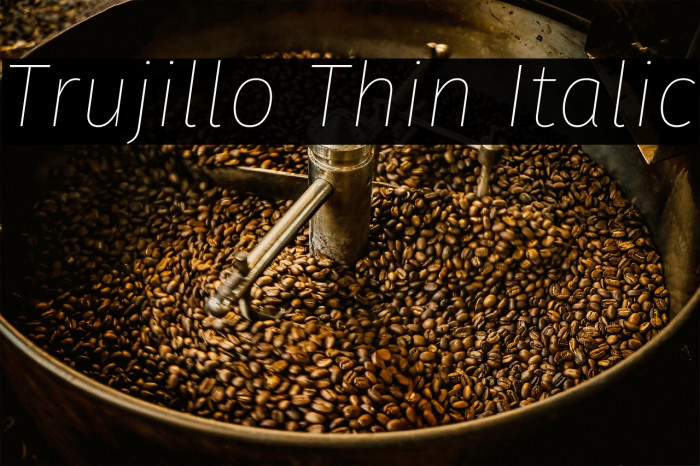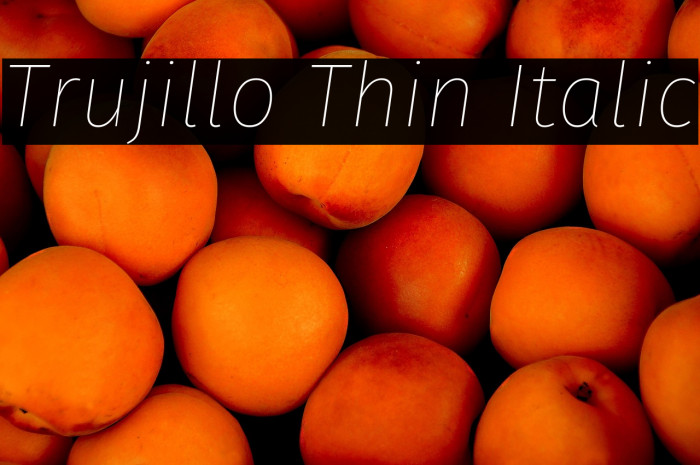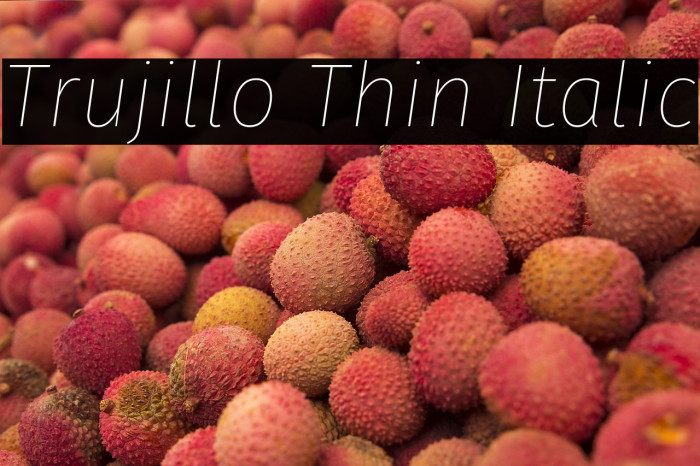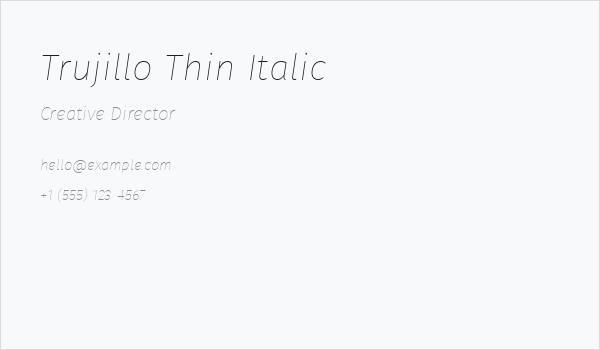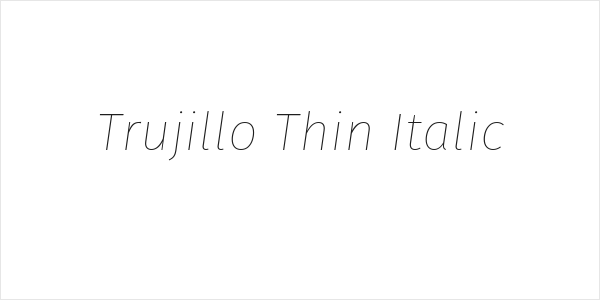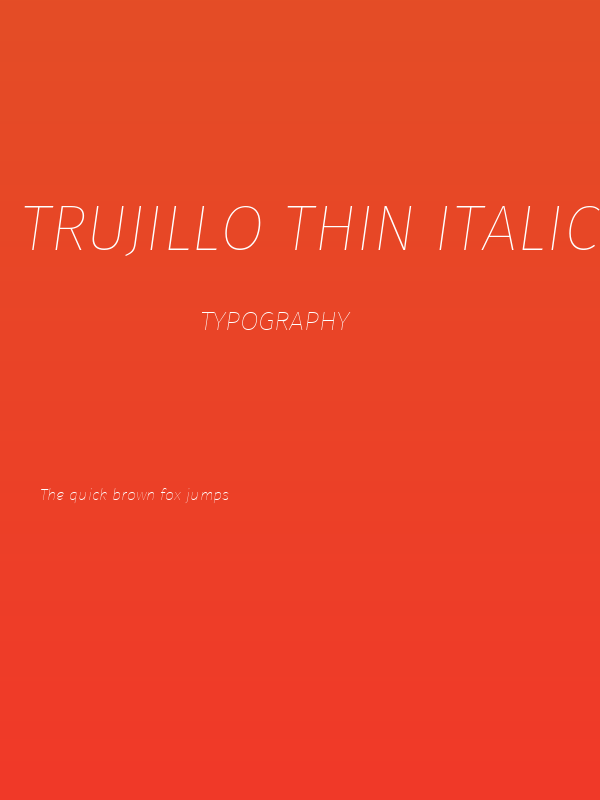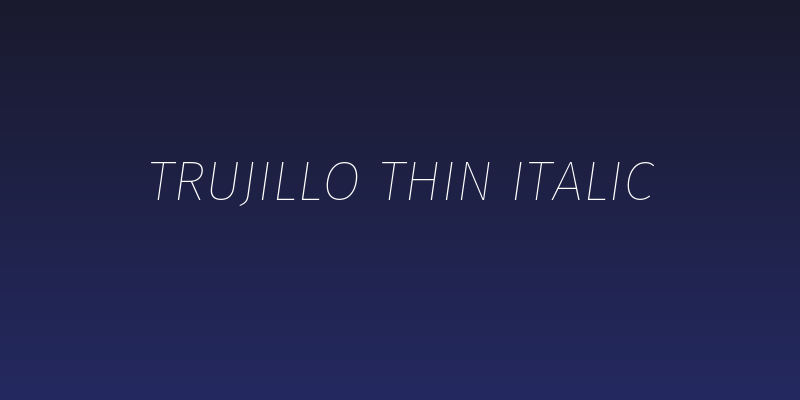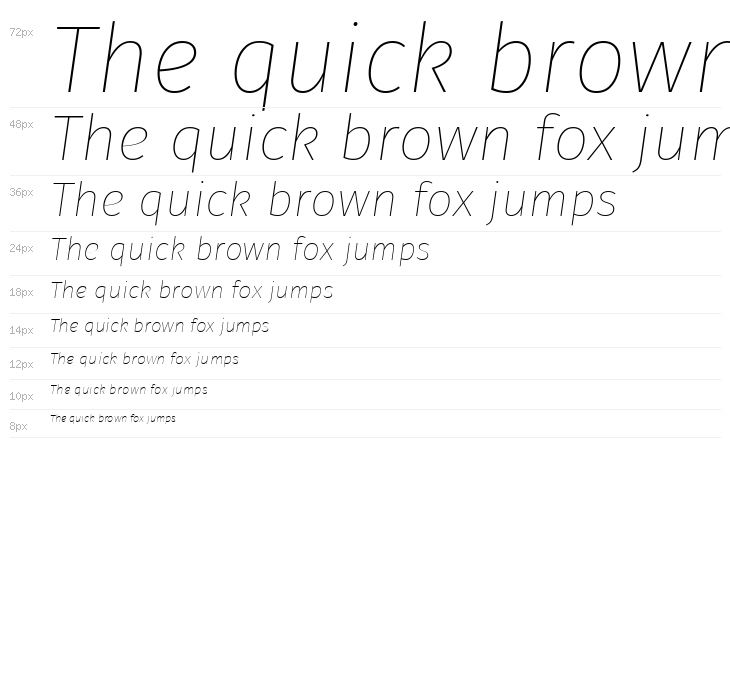
Trujillo Thin Italic Font
Trujillo Thin Italic Description
This font features a sleek and elegant design with a thin, italicized style. The characters are elongated and slightly slanted, giving a sense of motion and sophistication. The strokes are consistently thin, providing a delicate and airy appearance. The font maintains a clean and modern aesthetic, making it suitable for contemporary design projects. Its simplicity and elegance make it versatile for various applications, from digital to print media. The spacing between characters is balanced, ensuring readability while maintaining its stylish look.